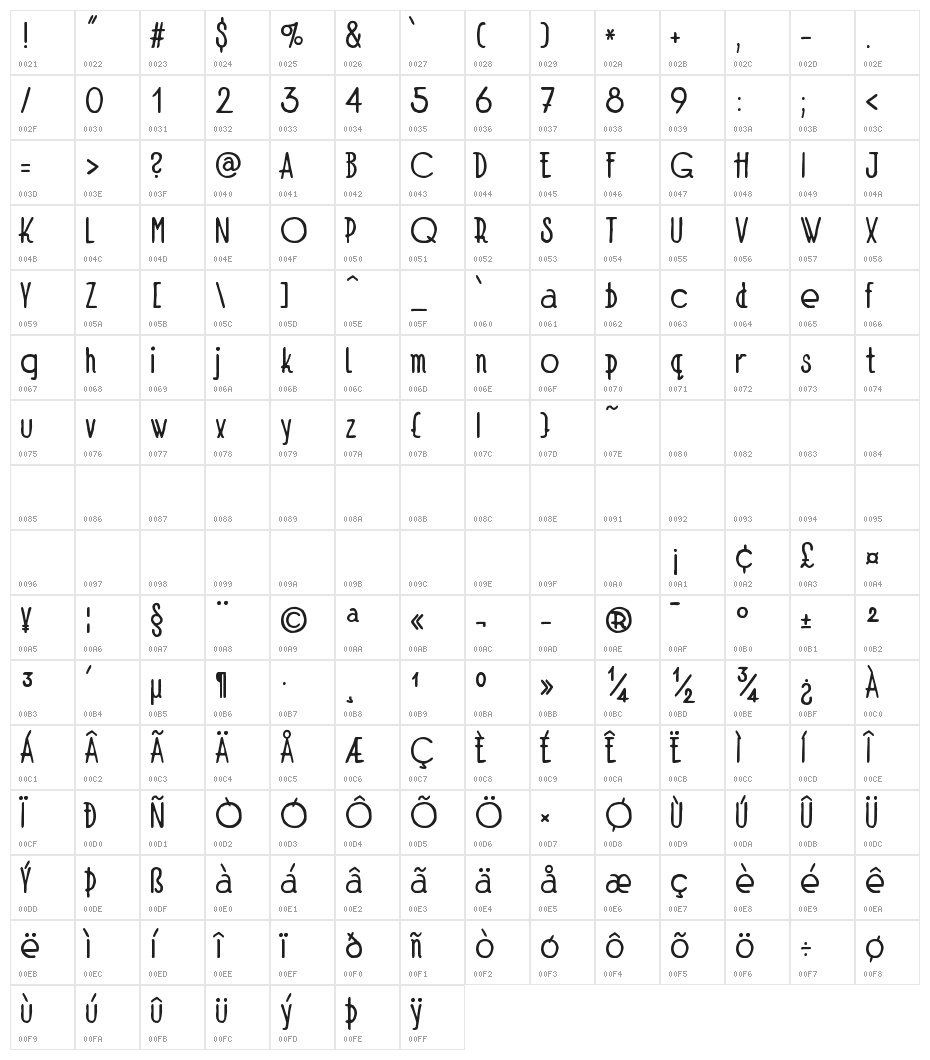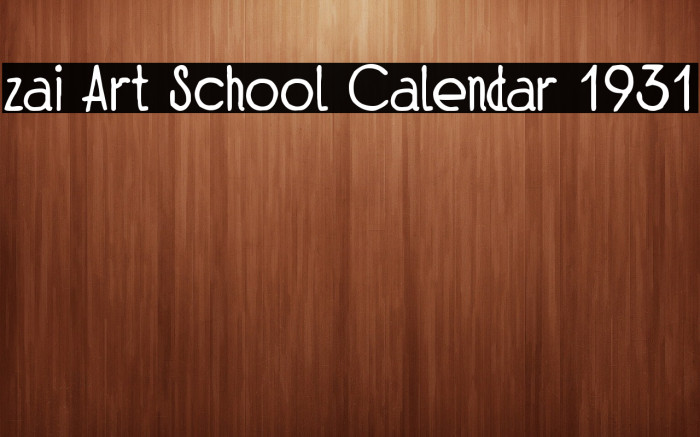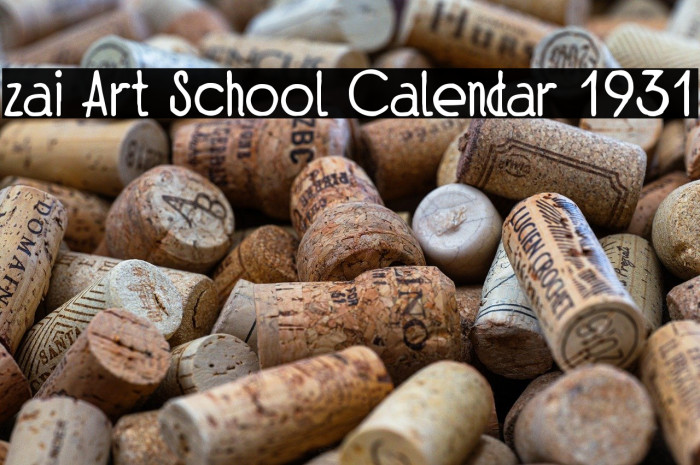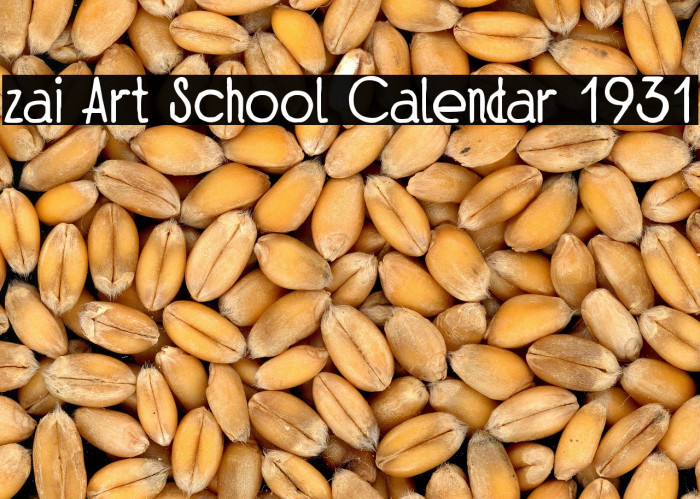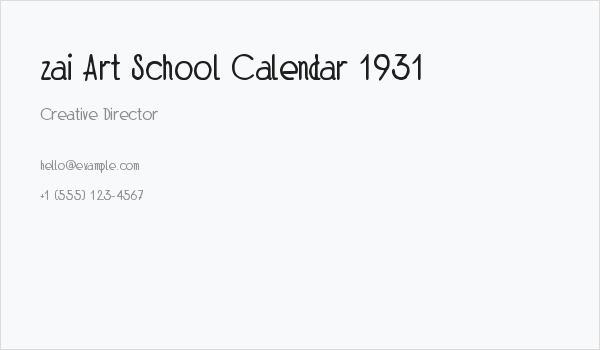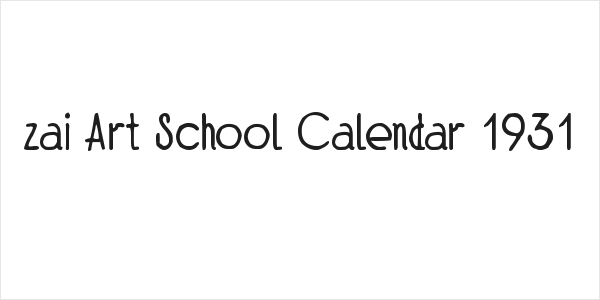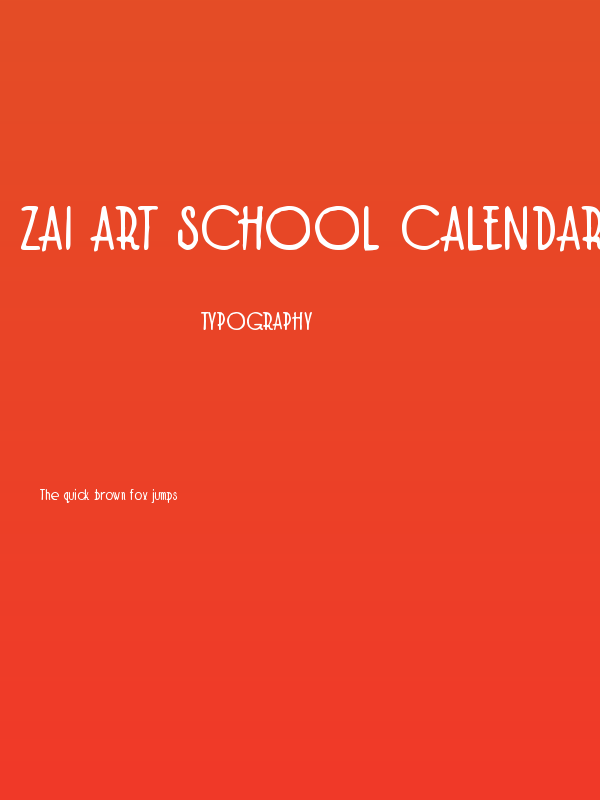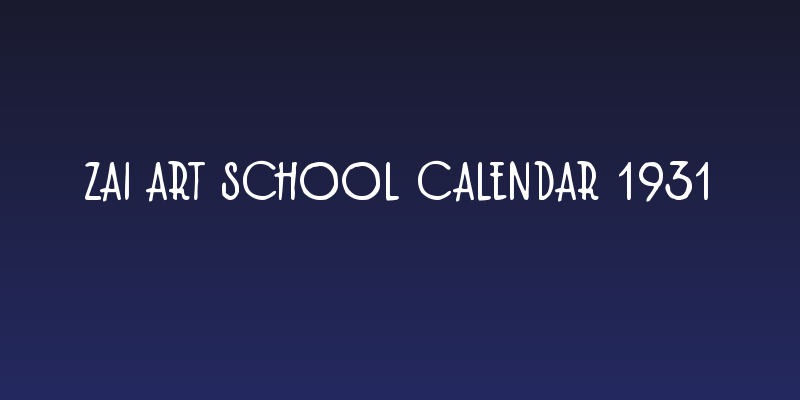
zai Art School Calendar 1931 Font
zai Art School Calendar 1931 Description
This font features a playful and artistic style with a hand-drawn appearance. The characters are slightly irregular, giving them a whimsical and informal feel. The uppercase letters are tall and narrow, while the lowercase letters maintain a consistent height, creating a harmonious balance. The numbers are bold and easily readable, and the special characters are creatively designed to match the overall aesthetic. The strokes are consistent in thickness, providing a uniform look across all characters. This font is ideal for projects that require a touch of creativity and personality.
Proposed ProjectsIdeal for art projects, children's books, creative posters, and playful branding.